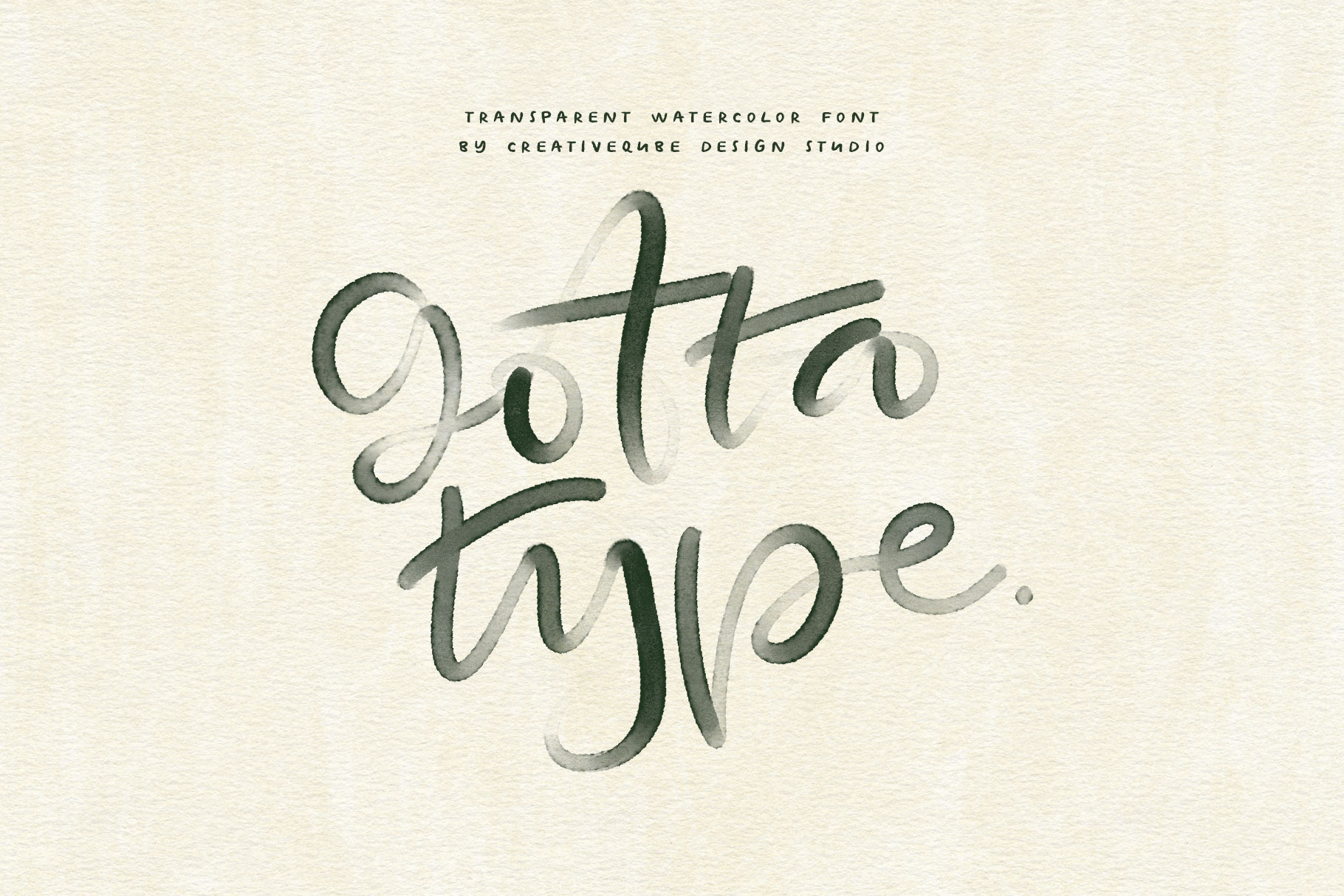
Gotta Type SVG Color Font
Gotta Type – A Handcrafted Color SVG Script Font
Say hello to Gotta Type – a bold and playful color SVG font bursting with personality! This handcrafted script font brings the look of real marker lettering straight into your designs with rich, textured strokes and a delightfully authentic hand-drawn flow.
Designed to make your words pop, Gotta Type includes over 200 double-letter ligatures, carefully crafted to mimic natural handwriting and give your typography a fluid, organic look. It's perfect for branding, social media graphics, quotes, packaging, invitations, or anything that needs a warm, handmade touch.
This is a color SVG font, which means it retains all the juicy details and marker texture of the original lettering — no need to overlay textures or add effects!
Add a splash of personality to your projects with Gotta Type – it’s the font you didn’t know you needed (but gotta have)!